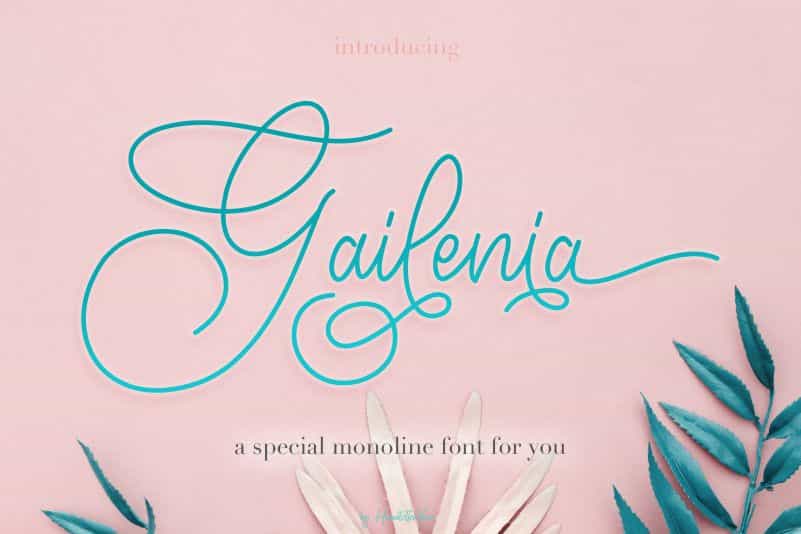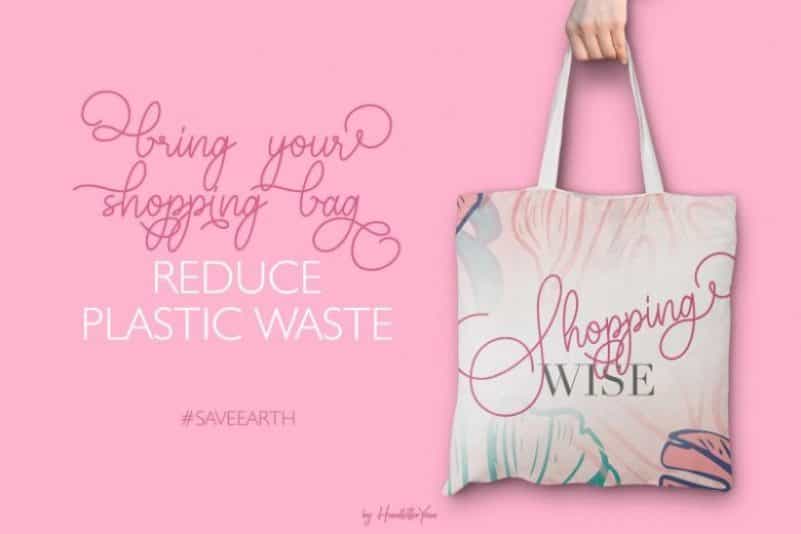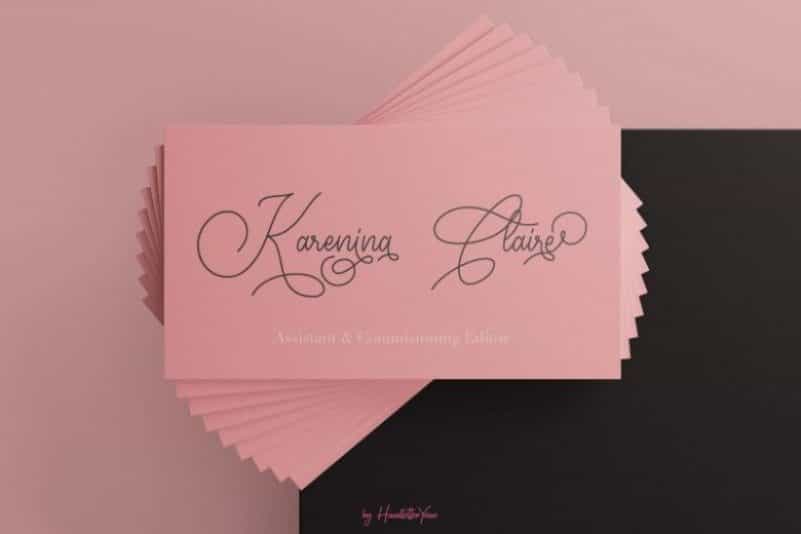
Gailenia is a handwritten script font endowed with a modest and graceful style, this font is best suited for branding and decor projects, it would be an excellent solution for personal blog or wedding invitation.